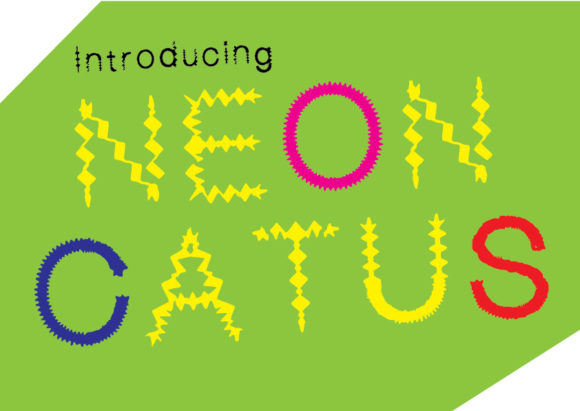
Welcome to the world of Neon Cactus Font, where fun and playfulness collide! This decorative font family is the brainchild of GraphicsBam Fonts, and it's the perfect choice for anyone seeking a unique and captivating display font.
Picture a vibrant neon cactus, its electric hues illuminating the night sky. Now imagine transforming that radiant energy into a font that dances and delights on your screen. That's Neon Cactus Font – a visual fiesta that captures the spirit of fun and adventure.
With Neon Cactus Font, you'll be armed with a font that demands attention. Its spiky silhouette and bold strokes are sure to leave a lasting impression. Whether you're designing play scripts, posters, party invitations, or any other project that calls for a touch of playfulness, Neon Cactus Font is your go-to choice.
This dazzling font family is more than just a collection of letters and symbols; it's an invitation to let your creativity run wild. Imagine the impact of your play scripts when each line dances with energy, captivating your audience from start to finish. Your posters will transform into eye-catching masterpieces, drawing in viewers with their vibrant charm. And your party invitations will become the talk of the town, promising an unforgettable celebration.
Neon Cactus Font is not just a font; it's an experience. It's a way to infuse your designs with a sense of joy and lightheartedness. So why settle for ordinary when you can bask in the brilliance of Neon Cactus Font?
Embrace the playful spirit of Neon Cactus Font today and let your designs shine brighter than ever before!